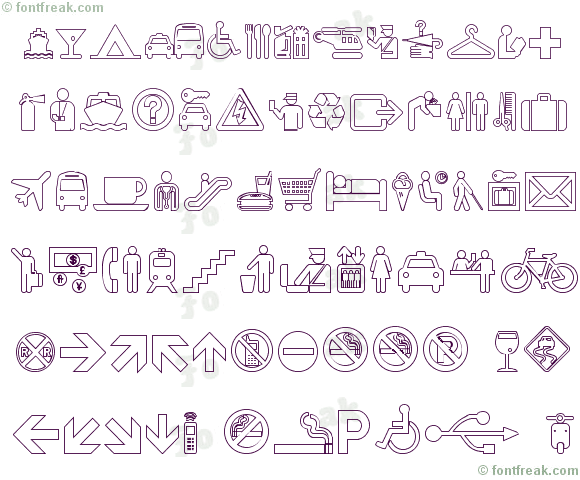
Travelcons
Travelcons Outline
Travelcons by Iconian Fonts is a unique dingbat font that captures the essence of travel through its imaginative symbols. Released in 2009, this freeware font offers a delightful assortment of icons that represent various aspects of travel, making it a valuable addition to any designer's toolkit. The visual characteristics of Travelcons are defined by its clean, outline-style glyphs, which maintain a consistent stroke weight throughout. This uniformity creates a harmonious look, while the simplicity of the designs ensures that they remain easily recognizable and impactful.
Travelcons is perfect for a variety of use cases, including travel brochures, flight itineraries, and tourism websites, where visual cues can enhance user engagement and understanding. Additionally, it can be a great choice for creating themed party invitations, travel blogs, or social media posts that aim to capture the excitement of adventure. The font appeals to graphic designers, small business owners in the travel industry, and content creators looking to add a touch of creativity to their projects.
As a standout option among dingbat fonts, Travelcons offers a versatile way to convey travel-related themes without cluttering designs with excessive text. Its unique and playful icons provide an effective means of communication that resonates with audiences, making it an essential resource for anyone looking to evoke the spirit of exploration. For those interested in incorporating this distinctive style into their work, the Travelcons font free download is available, allowing users to leverage its aesthetic appeal for their creative endeavors. With its engaging design and practical applications, Travelcons is sure to elevate your travel-themed projects.